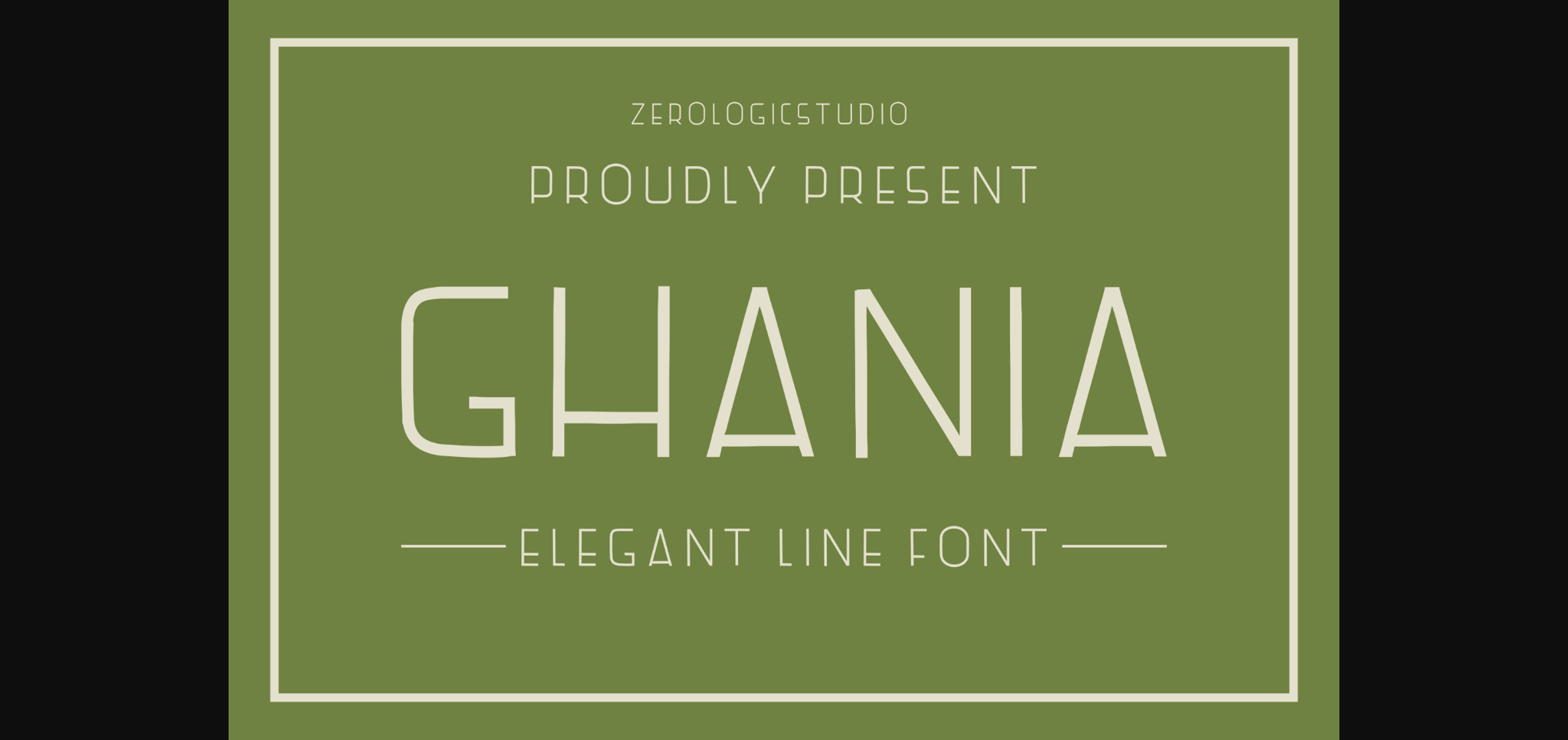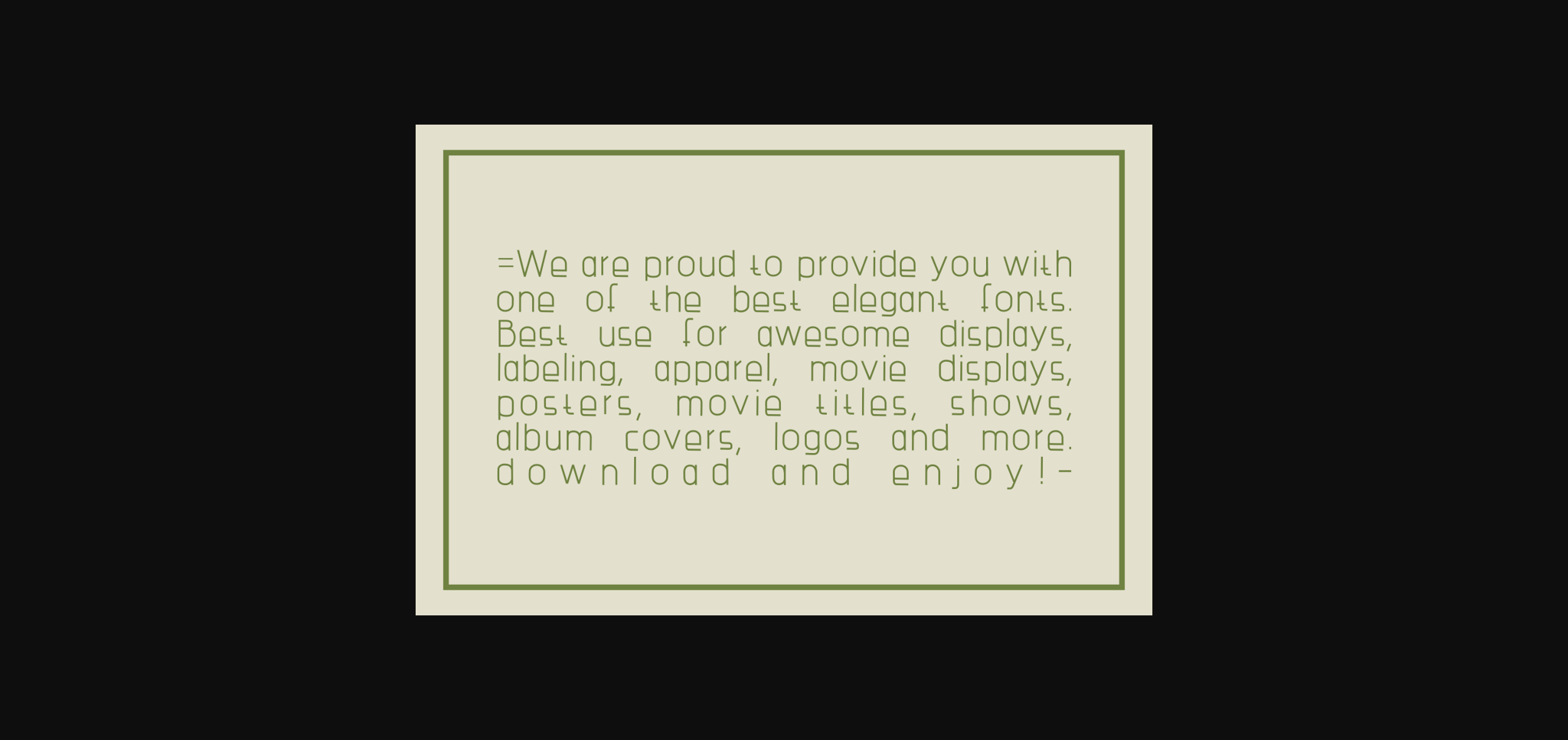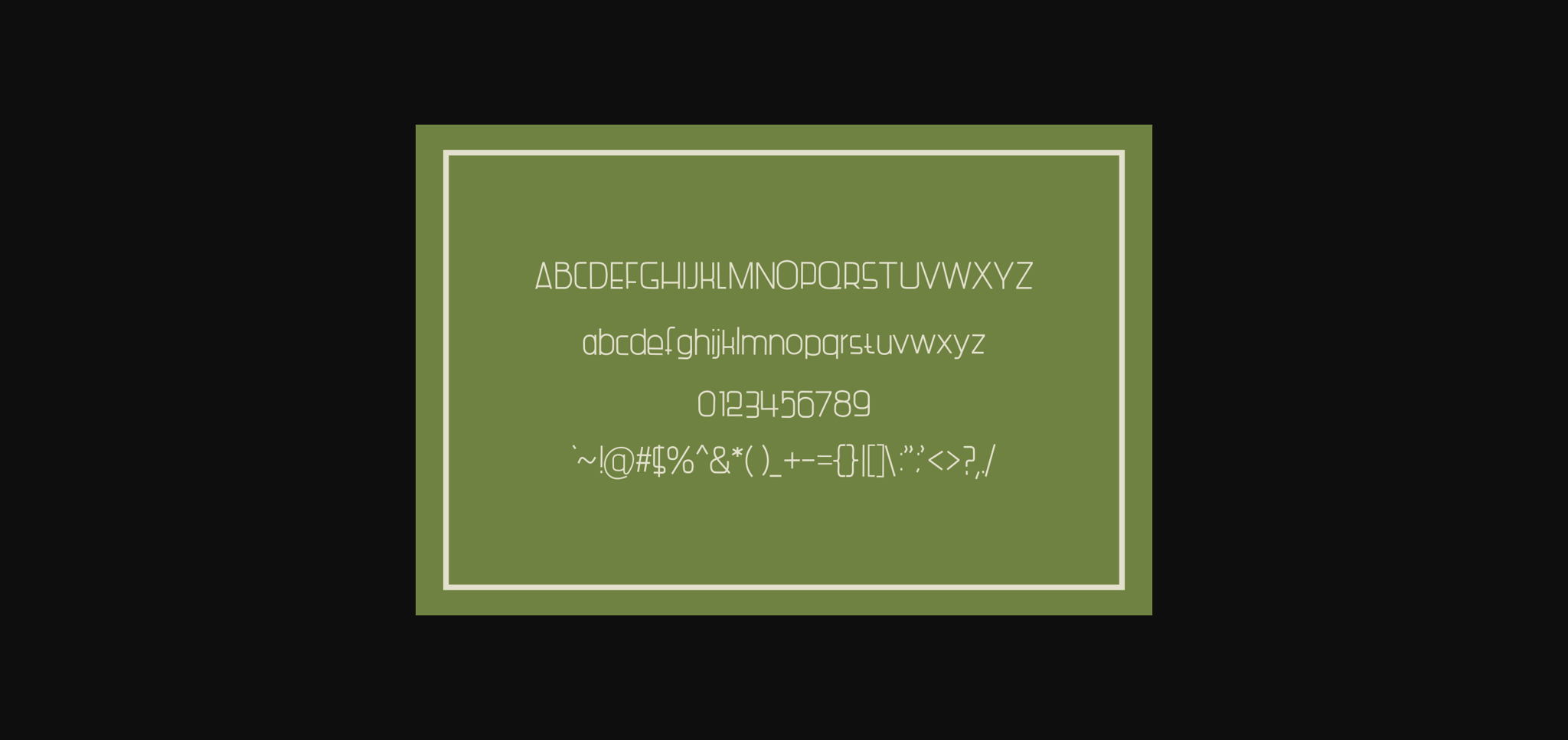
About Ghania Font
Ghania is a classy and neat sans serif font. No matter the topic, this font will be an incredible asset to your fonts’ library, as it has the potential to elevate any creation.